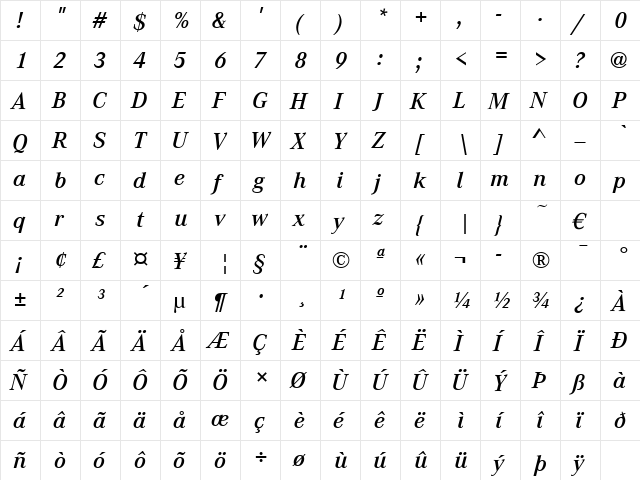
CorpoADem Italic
Design Context for CorpoADem Typeface
CorpoADem offers clean, dependable letterforms without strong stylistic allegiance, making it a practical choice for designers who need flexibility. The slanted form adds forward momentum and visual energy.
Pro Tip: Try CorpoADem for annotation and caption copy alongside an upright companion — the contrast in angle creates a dynamic but ordered typographic system.